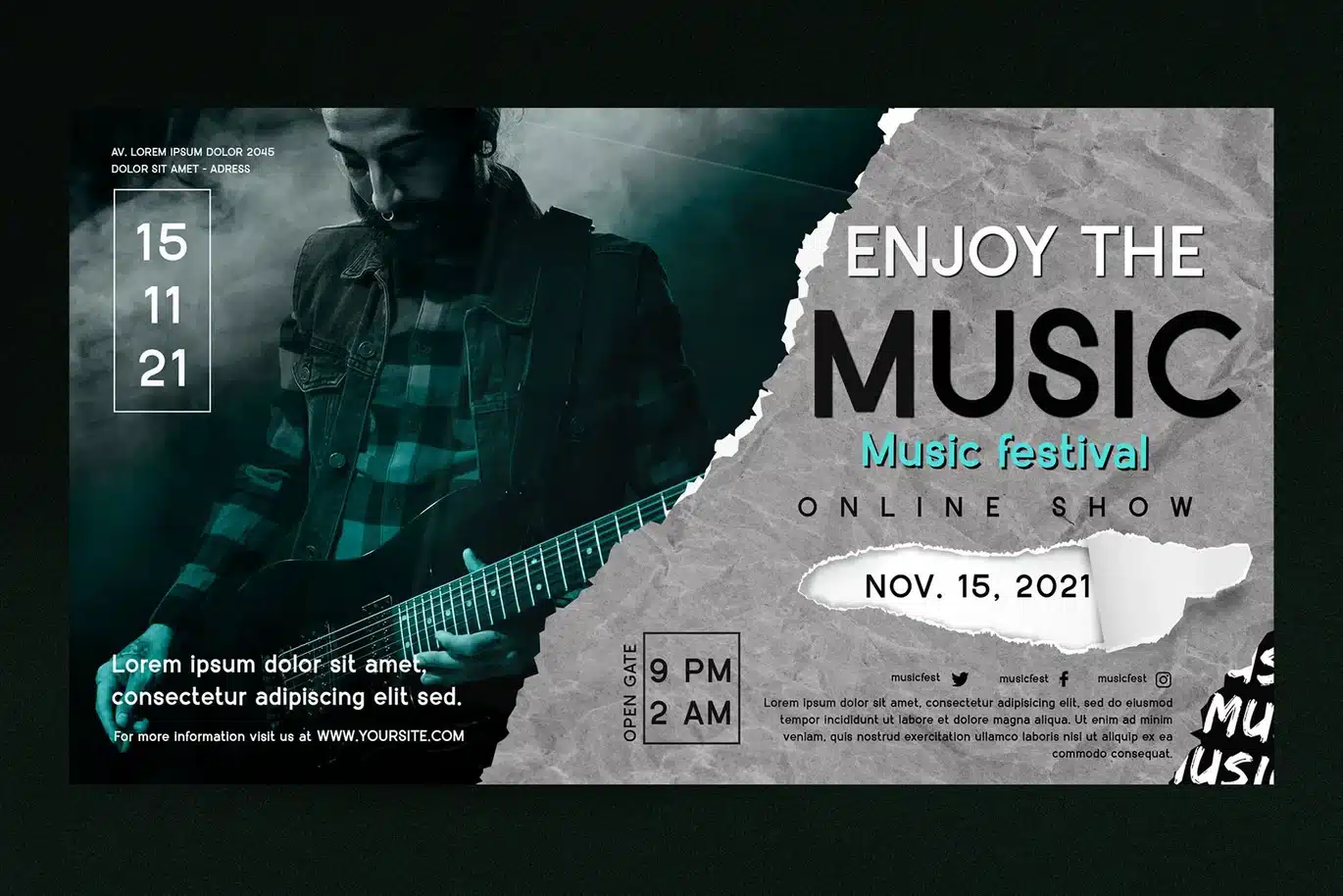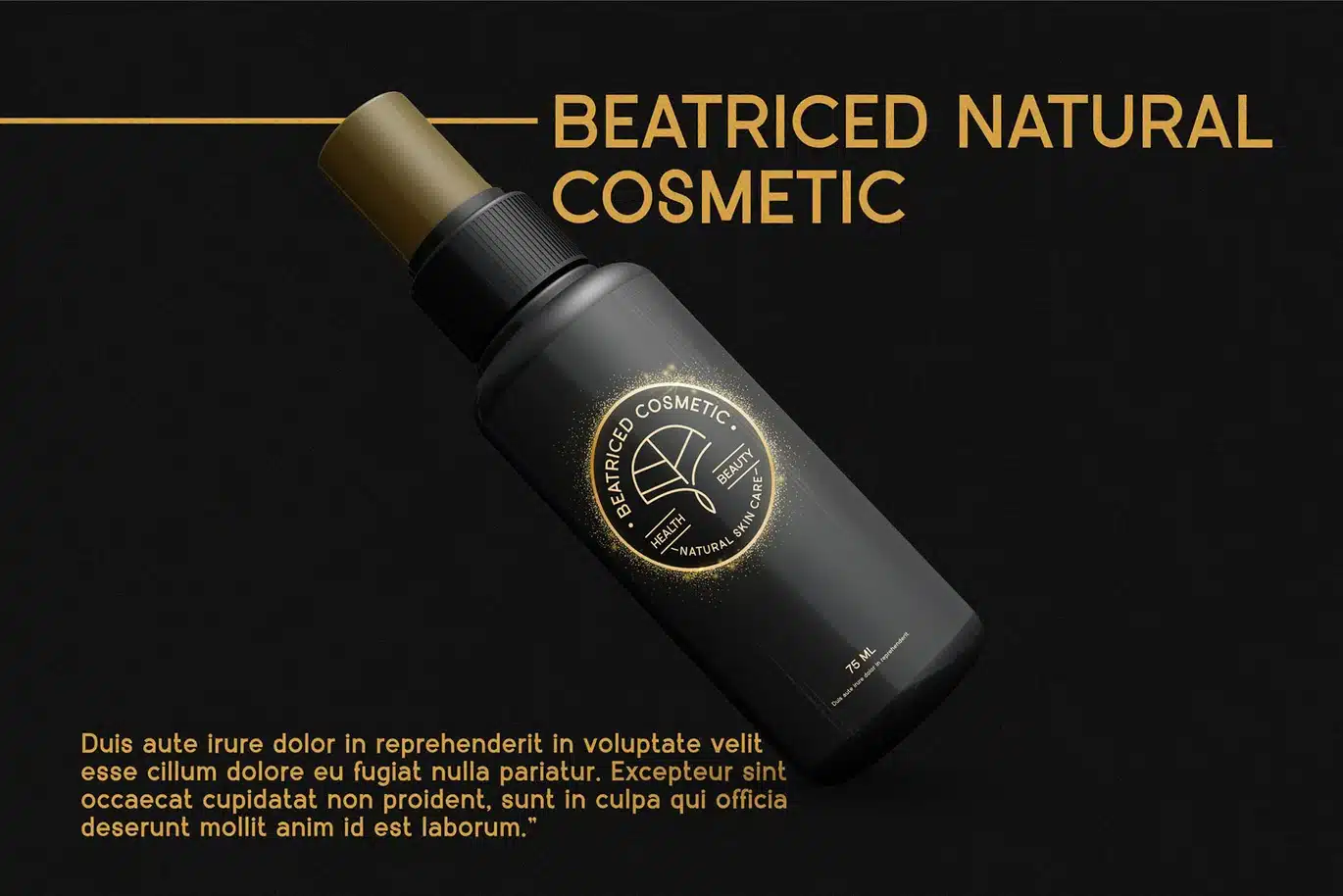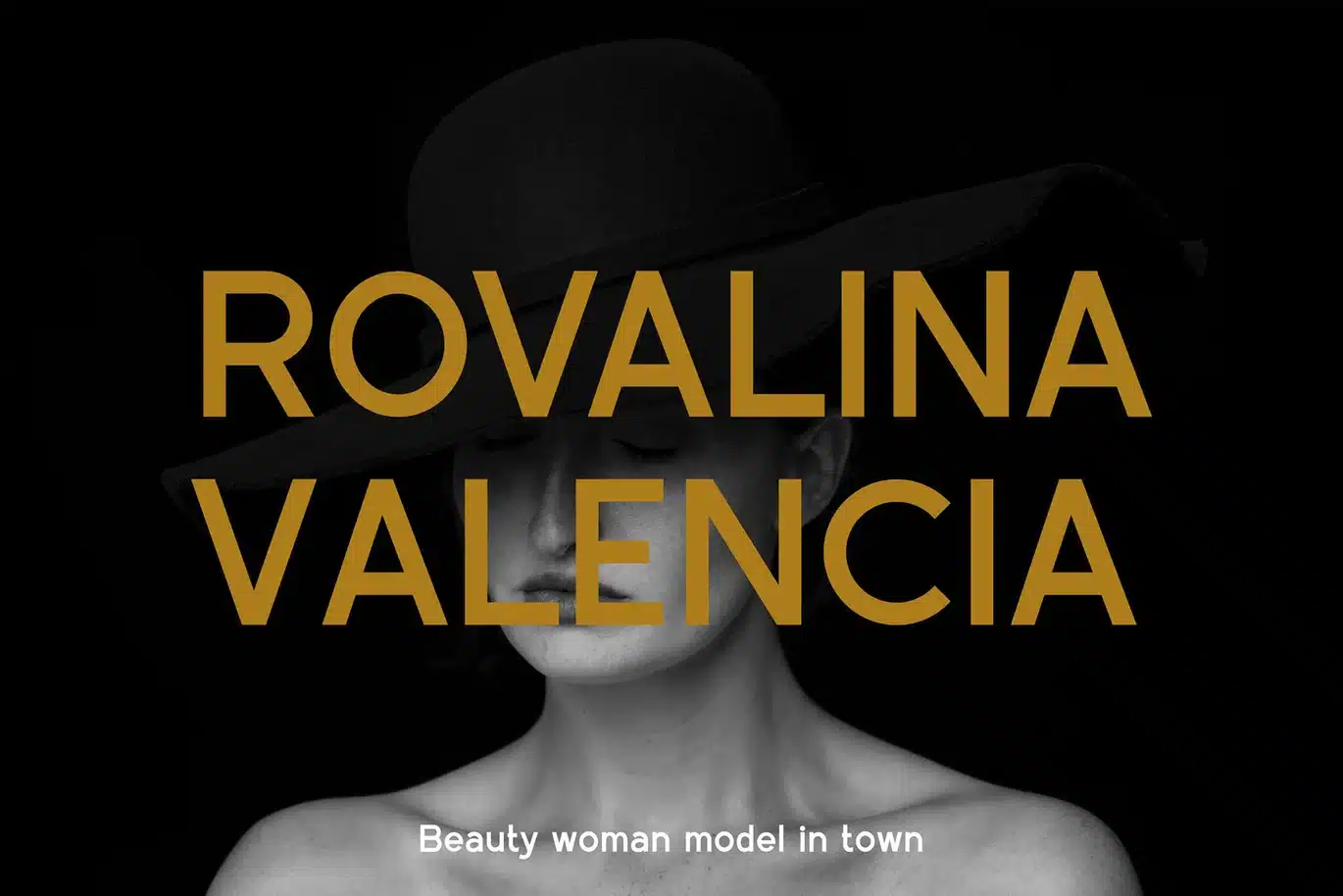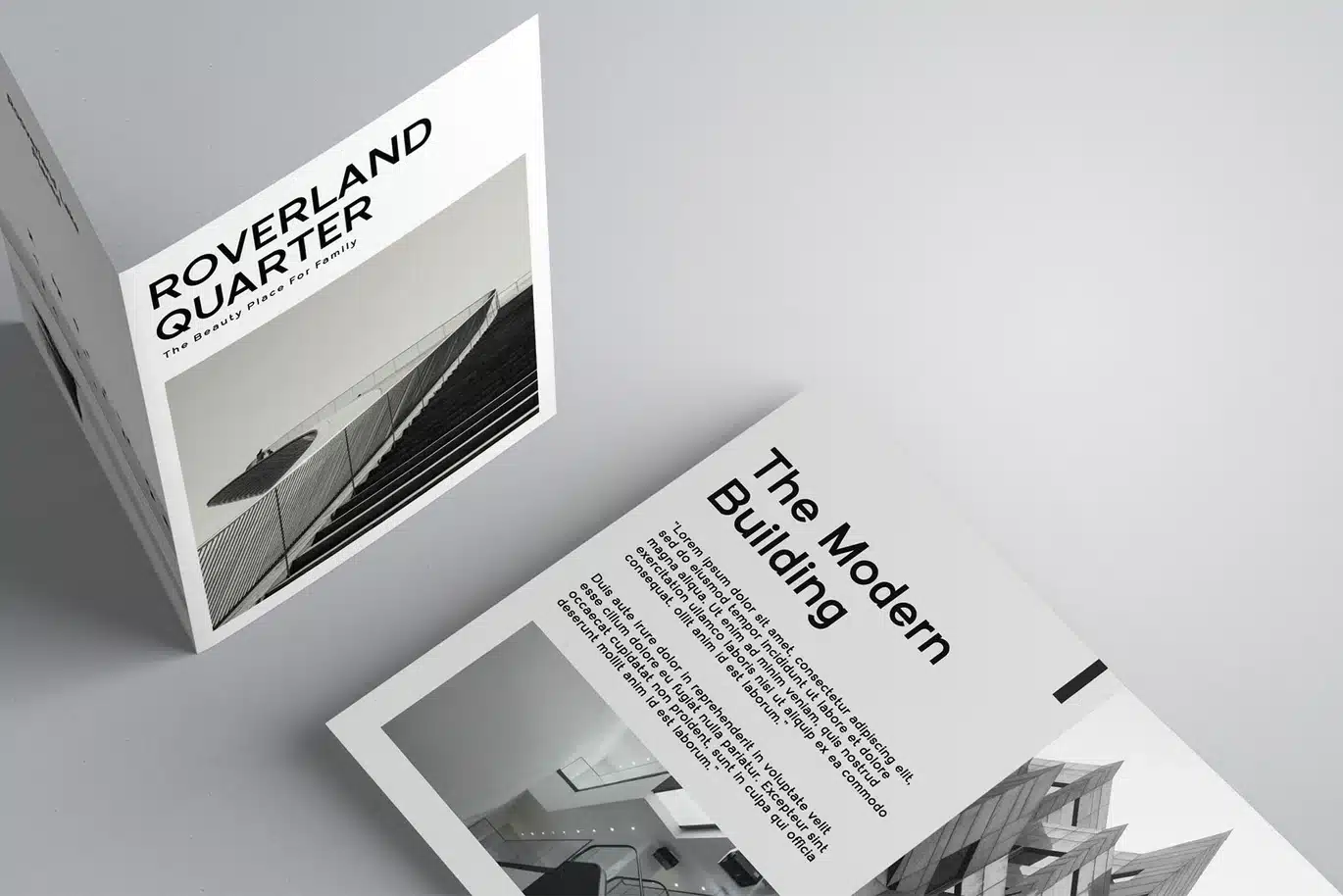
Botana Placed – Modern Sans Serif Font
Introducing Botana Placed - Modern Sans Serif.
Botana Placed is a modern and simple font, best used as a display for headings, logos, branding, magazines, product packaging and invitations.